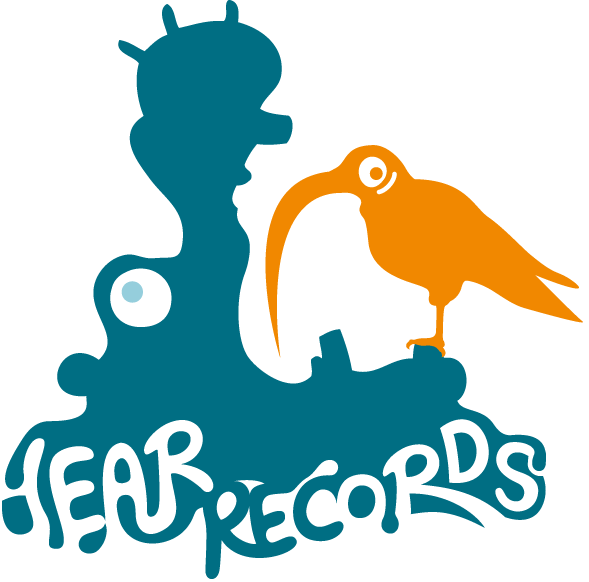
Here's little something I've been working on.
Comments on the type only please. I'd like to hear your ideas, how to improve it. It's too wonky and inconsistent at places.
Took a very long time to see the hippo :-)
Ok on to the type:
• Hear or Ear? H is problematic
• EA probably should almost touch like that.
• REC=Dark, ORDS=Light is odd, I'd do them all negative or.. Hear negative and Records positive etc. Not half a word.
• Negative space between R and E is wonky. Actually all the way through records is wonky.
Overall I think you'd improve it if you focused on making it "drippy" all the way through the letters and counters. More like the "HEAR" part, though that could also be more fluid. THe artificial parts of the RECORDS added for legibility need to be rethought so they are less contrived... the worst offenders are the area above the C and Especially the S.
Bag under the hippo eye? :-)
it's called i ear music but i can only see eyes... the typography reminds me of the trippy aerosmith logo - needs a bit of work on the text - there is no clever reason to split the word pos/negatively so how about making each word a different colour?
i'm probrably missing the whole blue shape thing... my only concern being a record label is the size differential of the text to the rest of the logo - at an appropriate size for the back of a CD the "wobbly" text will be tiny...